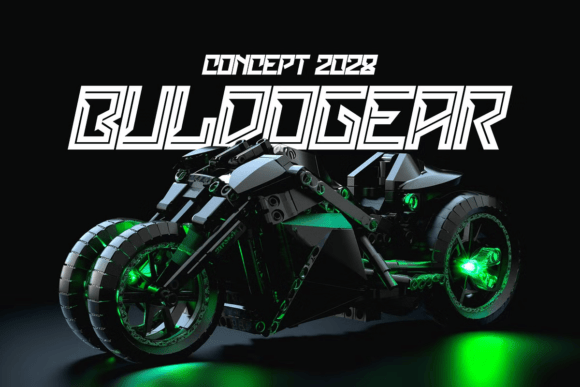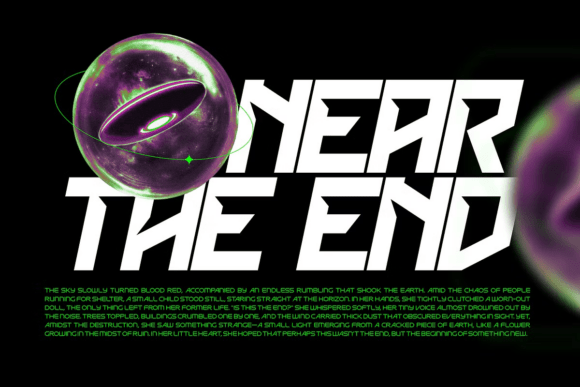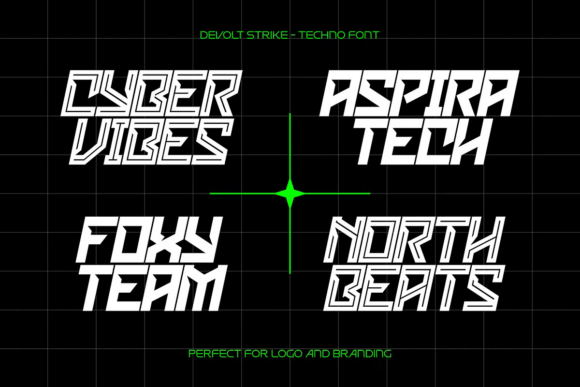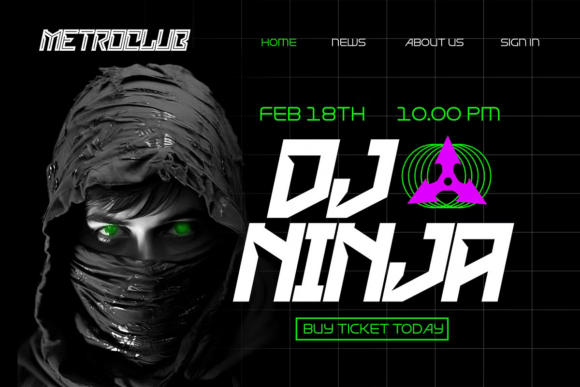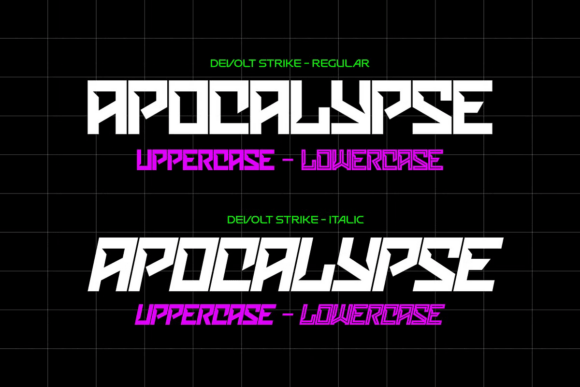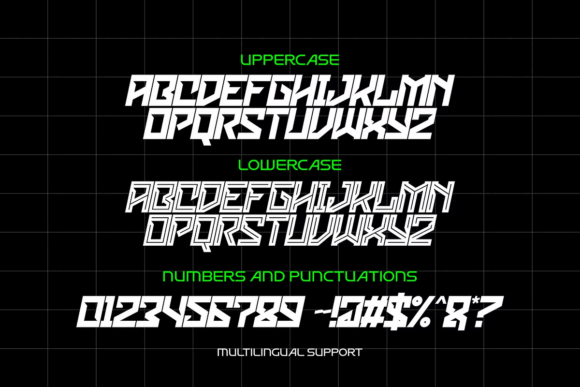
Unleash the Power of Speed: Introducing Devolt Strike Font
In the world of design, typography plays a crucial role in conveying the essence and personality of a brand. For projects that demand energy, speed, and power, such as automotive, esports, or action-oriented ventures, a font that embodies these qualities is essential. Meet Devolt Strike, a dynamic racing sports typeface engineered to capture the adrenaline-fueled spirit of high-speed performance.
Design Characteristics of Devolt Strike
Devolt Strike is not just a font; it’s an experience. Crafted with meticulous attention to detail, this typeface boasts sharp angles, bold strokes, and sleek lines that collectively evoke the thrill of motorsports. Its design is centered around creating a visual impact that is both commanding and daring, making it perfect for branding, logos, or titles that require an aggressive yet modern aesthetic.
Aggressive Styling for Maximum Impact
The aggressive styling of Devolt Strike is one of its standout features. The sharp, angular letters are designed to cut through the noise, delivering a commanding presence that demands attention. This makes Devolt Strike an excellent choice for race car decals, event posters, team logos, or any project that needs to make a bold statement.
Modern Aesthetic for Versatility
Despite its aggressive nature, Devolt Strike maintains a clean and modern aesthetic. This balance ensures that the font is versatile enough for use in both digital and print media. Whether you’re designing for the track or the virtual arena, Devolt Strike seamlessly adapts, providing a sleek and contemporary look that enhances your project’s visual appeal.
Customizable Details for a Unique Touch
Understanding the need for customization, Devolt Strike includes elements such as extended strokes and split letters. These features add a futuristic, high-tech feel to your designs, allowing for a level of personalization that can set your project apart. This versatility in design makes Devolt Strike suitable for a wide range of applications, from gaming overlays to promotional materials.
Versatile Applications of Devolt Strike
The applications of Devolt Strike are as versatile as its design. Here are a few ways this dynamic font can elevate your projects:
- Race Car Decals and Event Posters: The bold and aggressive styling of Devolt Strike makes it perfect for use in the automotive world, adding a touch of speed and competition to any design.
- Team Logos and Branding: For esports teams or action-oriented brands, Devolt Strike offers a typography solution that communicates energy, speed, and a competitive edge.
- Gaming Overlays: In the digital realm, Devolt Strike can enhance the visual impact of gaming overlays, stream titles, and more, providing a professional and high-energy look.
Why Choose Devolt Strike?
Choosing Devolt Strike for your design project means selecting a font that is not just visually appealing but also highly functional. Its unique blend of aggression and modernity, coupled with its versatility, makes it an invaluable asset for designers looking to make a statement. Here are a few reasons why Devolt Strike should be at the top of your font choices:
- Attention-Grabbing: Its bold design ensures that your project grabs attention and leaves a lasting impression.
- Versatility: Suitable for a wide range of applications, from automotive to digital media.
- Customization: Offers elements for a personalized touch, allowing your project to stand out.
| Font Name | Devolt Strike Font |
| Author | asf-graphics |
Devolt Strike is more than just a font; it’s a design statement. For those looking to infuse their projects with the essence of speed, energy, and power, this dynamic racing sports typeface is the perfect tool. Its aggressive styling, modern aesthetic, and customizable details make it an ideal choice for a variety of applications. Whether you’re a designer, a gamer, or part of the automotive or esports industries, Devolt Strike is poised to elevate your visual creations to new heights.